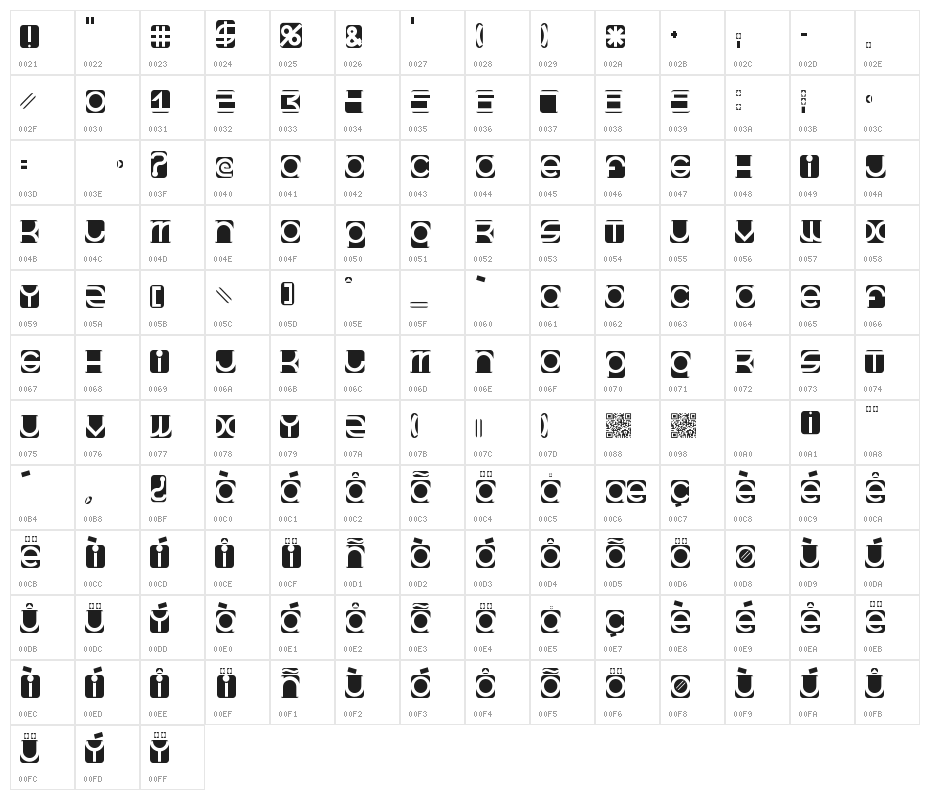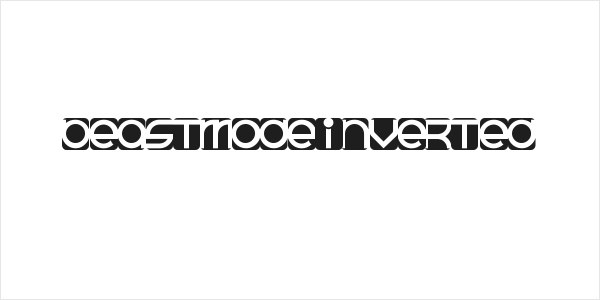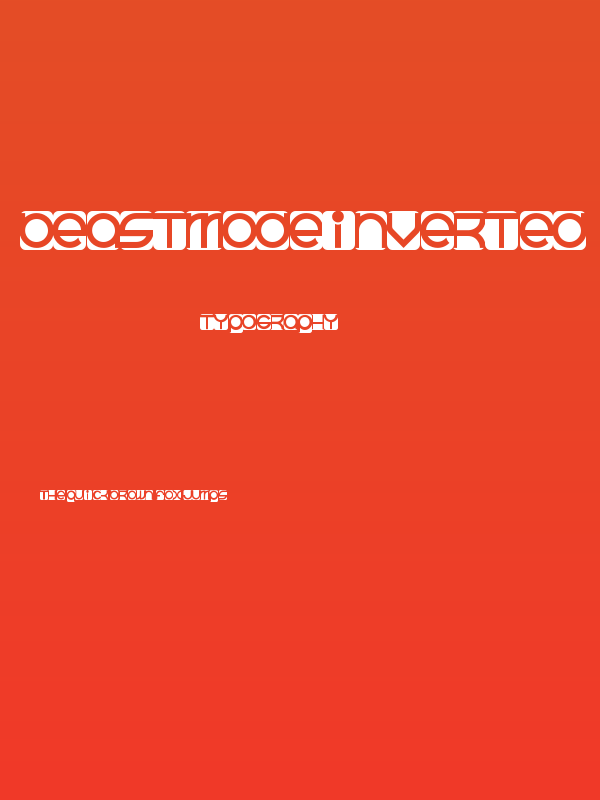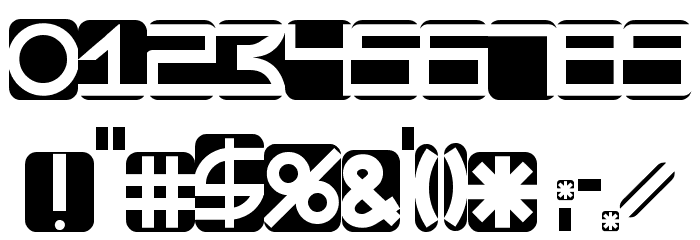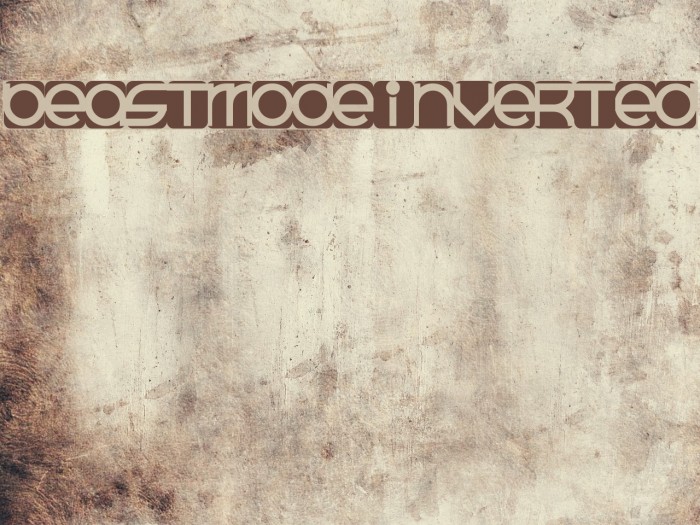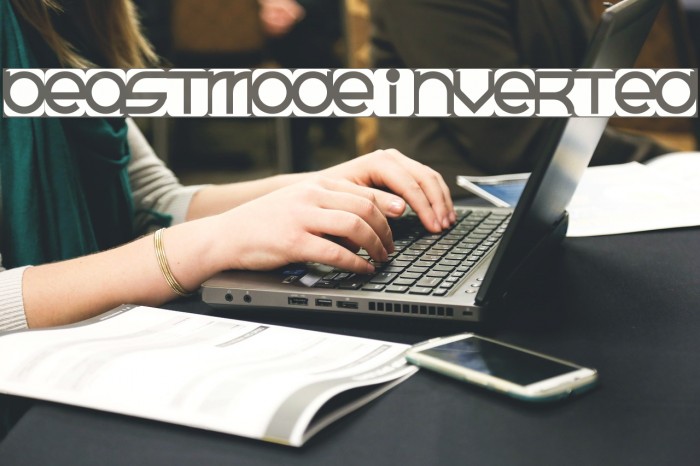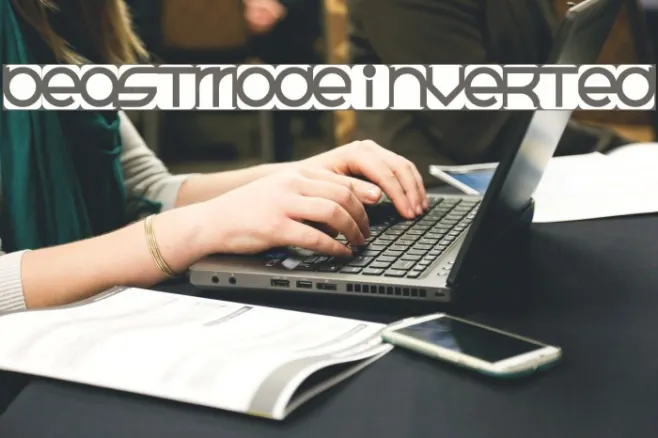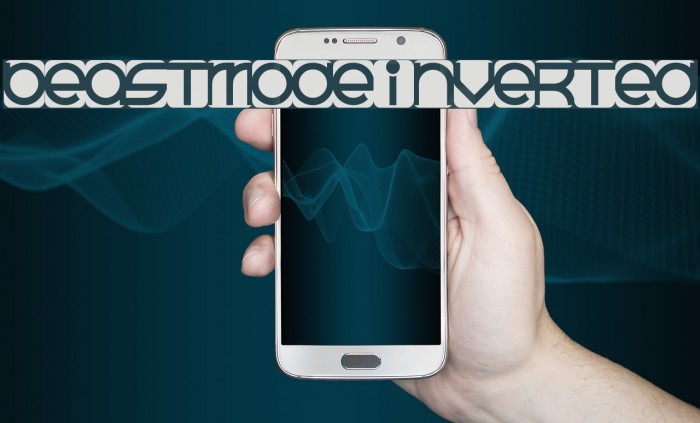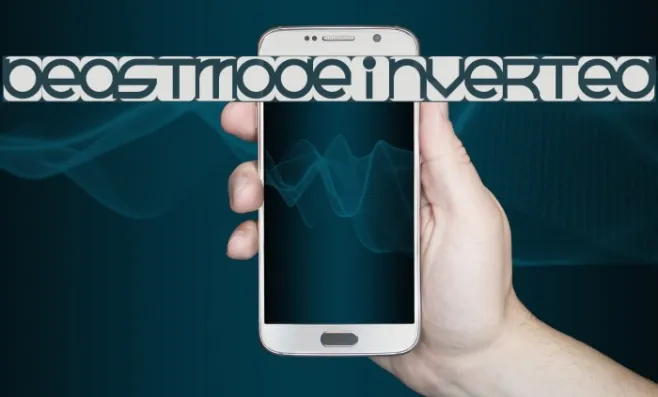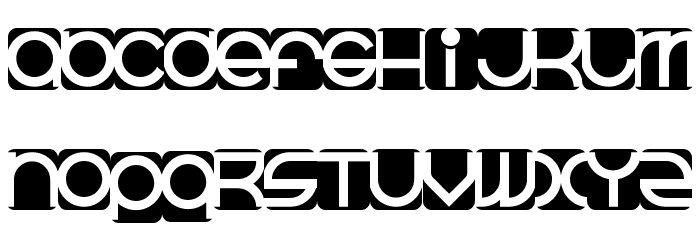
BeastModeInverted Font
BeastModeInverted Description
This font features a bold and futuristic design with a strong geometric influence. The characters are constructed with thick, block-like shapes that create a sense of power and modernity. The letterforms are highly stylized, with unique cutouts and angles that give the font a distinctive, edgy appearance. The uppercase and lowercase letters maintain a consistent style, while the numbers and special characters complement the overall aesthetic. The font's design is both eye-catching and versatile, suitable for a variety of creative applications.
| Proposed Projects | Ideal for branding, posters, video game graphics, and sci-fi themed projects. |